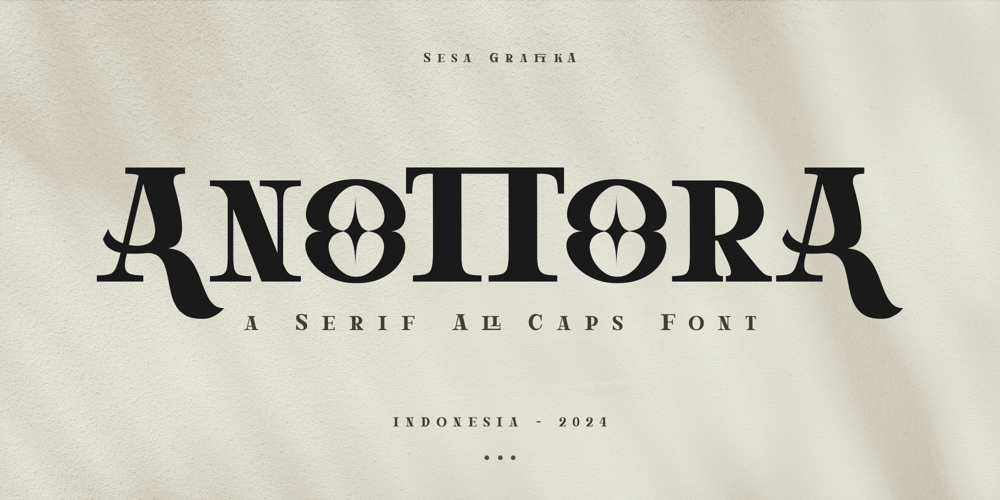
Anottora
Anottora font
Anottora Font Family was designed by Wisesa Purba Giandar and published by Sesa Grafika. Anottora contains 1 styles and family package options. Anottora is a caps fonts based on the Modern lettering. Anottora is a display serif font with modern look that is perfect for multipurpose projects. I made Anottora Font inspired by the concept of romantic vibes and made it into a unique yet luxury style. This font is also looks fabulous and will fit well in any design and very recommended for logo, crafts, posters, books, branding, quotes, print templates, packaging, invitations, product labels, advertising, wedding project and more.